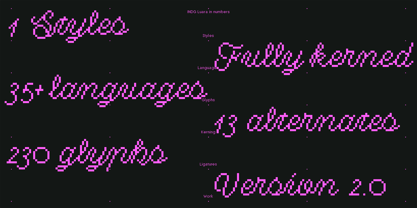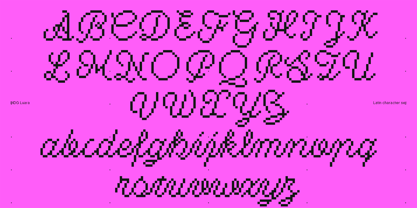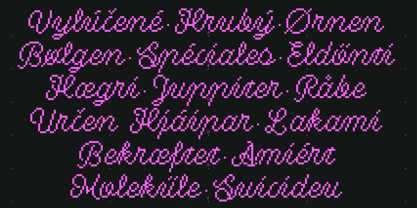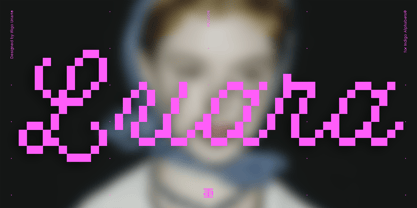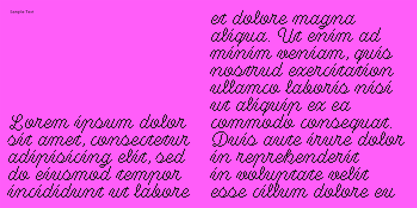
INDG Luara
by Iñigo Uriarte
Low fidelity doesn't need to mean sobriety.
An exercise of uchrony. In Luara, I attempted printing soul onto a square grid; and make pixels convey the movement of a pen.